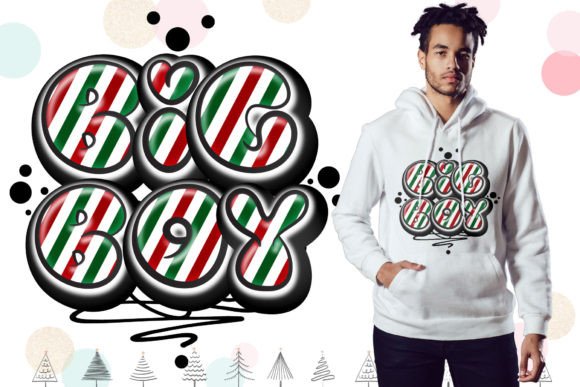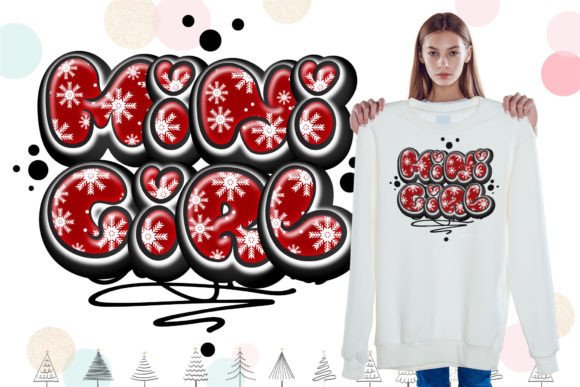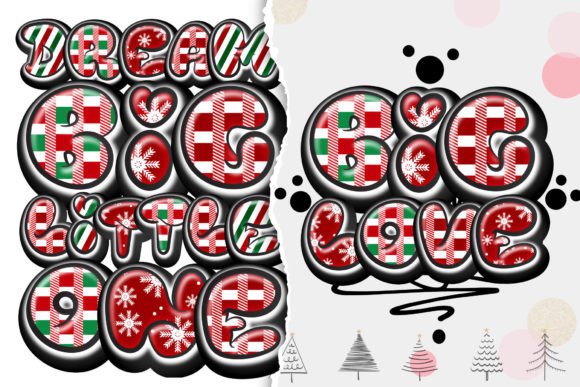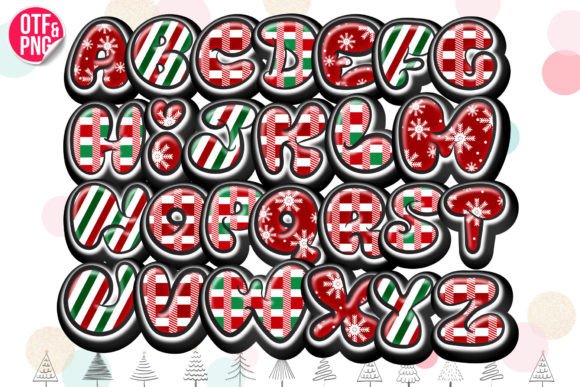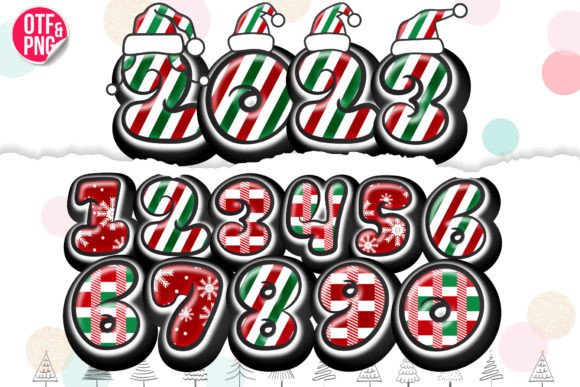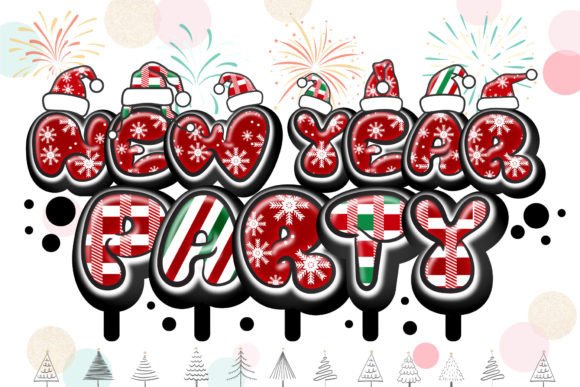
Introduction to Merry Jolly Font
Merry Jolly is a graffiti-styled colorful font with a Christmas theme.
Add it to any design that requires an urban Christmasy touch The only limit is your imagination.